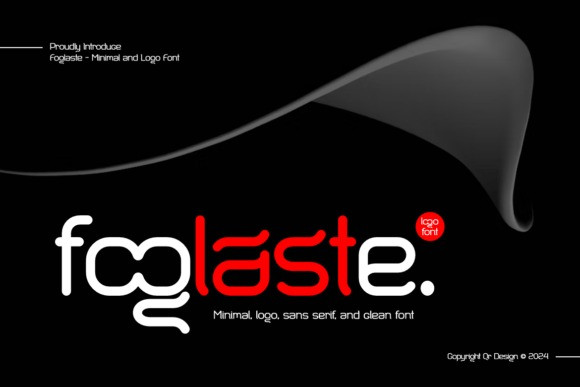
Foglaste Font
Designer: qrdesignstd
Foglaste Font is an incredibly cool and unique sans serif font. It has a modern yet whimsical style and it will undoubtedly immerse your designs into a magical world.